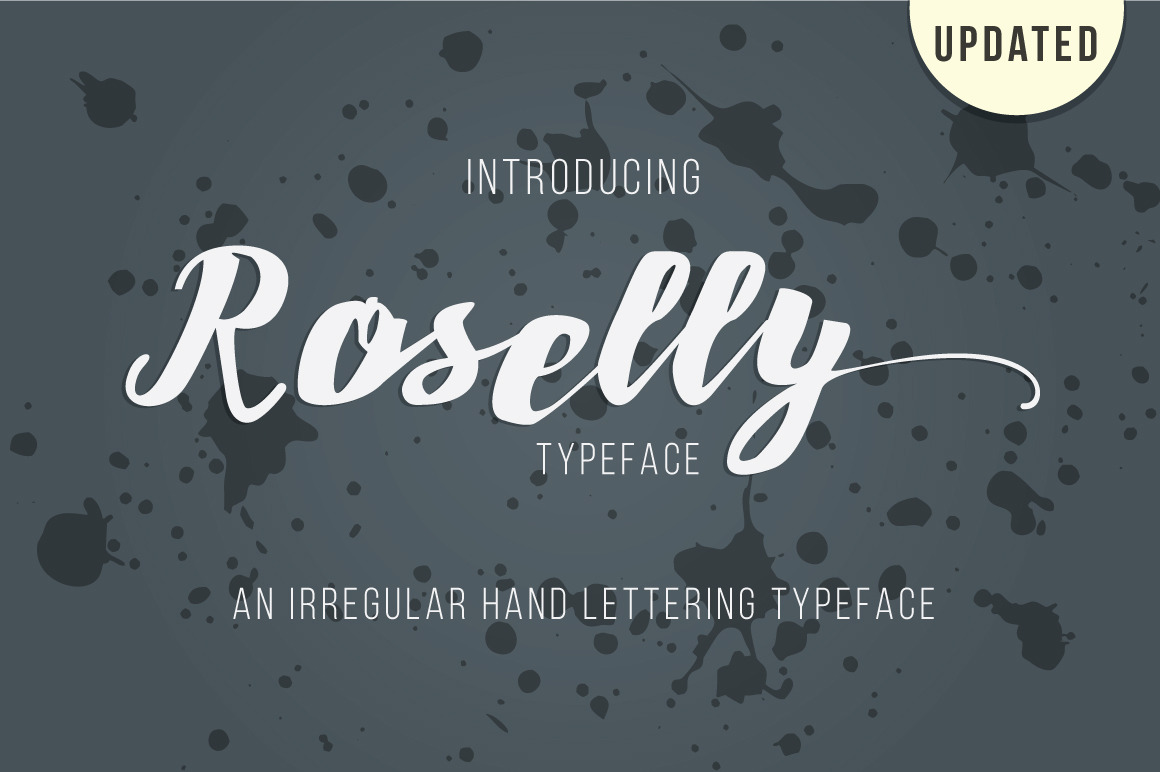
Roselly Typeface
Roselly Typeface is modern script typeface, every single letters have been carefully crafted to make your text looks beautiful. Roselly Typeface will perfect for many different project ex: quotes, blog header, wedding, branding, logo, fashion, apparel, letter, invitation, stationery, T-shirts, Packaging designs, Poster, Typographic Design, and so much more!